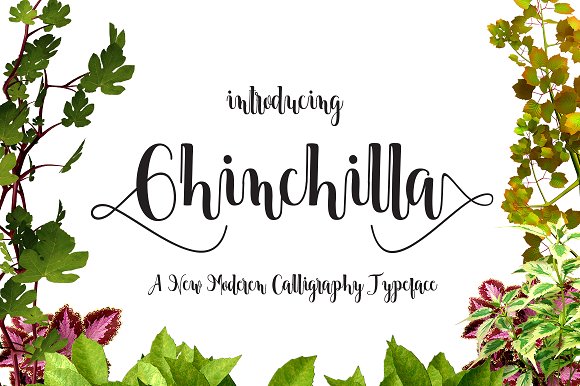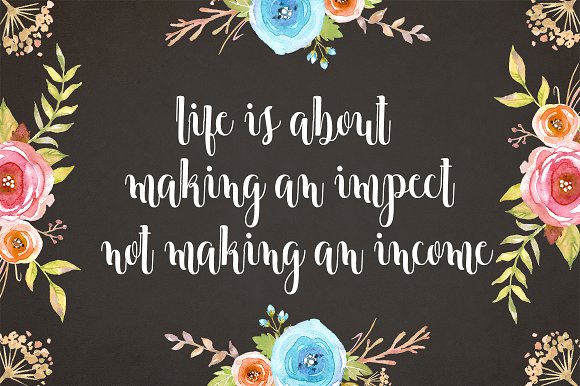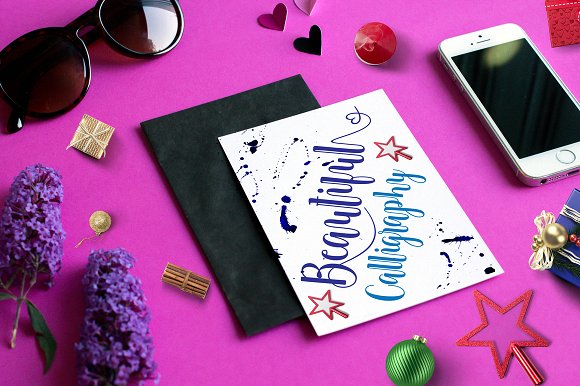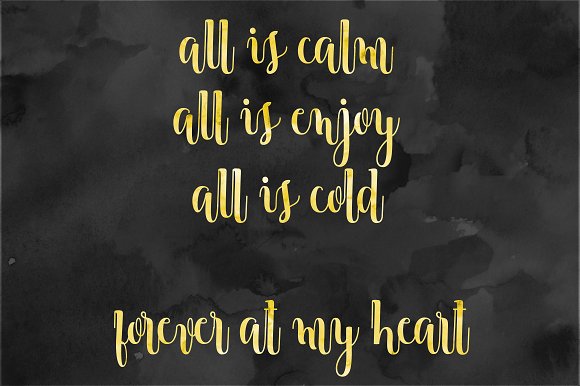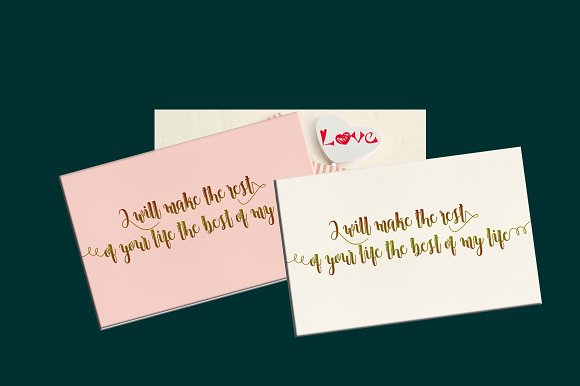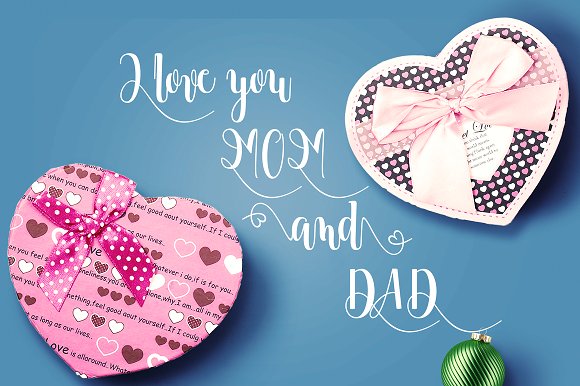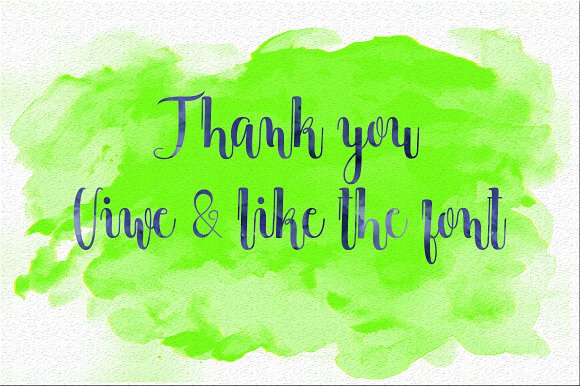
Chinchilla Font
About Chinchilla Font
Chinchilla is a smooth font that was completely handmade.
The Chinchilla font features:
Standard Ligatures
Stylistic Alternates
Stylistic Sets
Swashes